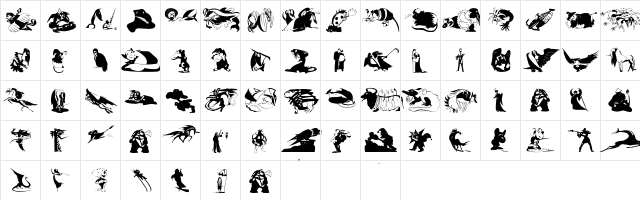
FantasyBeings Regular
Design Context for FantasyBeings Typeface
FantasyBeings is a composed and adaptable typeface that performs quietly and consistently across a wide range of design contexts.